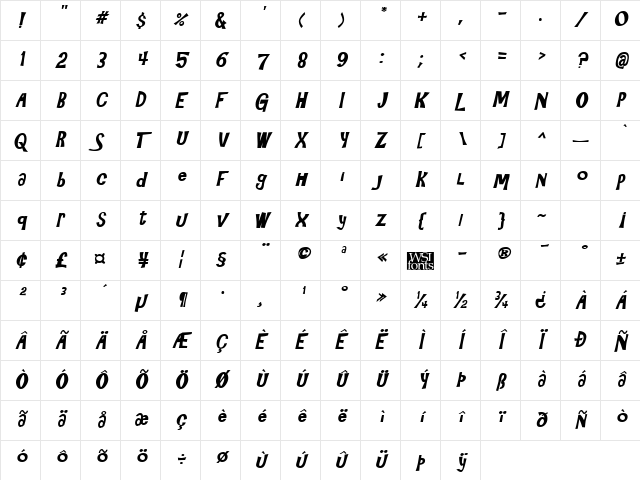
3HourTour BoldItalic
Design Context for 3HourTour
3HourTour is a composed and adaptable typeface that performs quietly and consistently across a wide range of design contexts. The slanted form adds forward momentum and visual energy. Its bold stroke weight gives it real presence on the page.
Pro Tip: Use 3HourTour for emphasis, pull quotes, and subheadings where its slanted energy can add rhythm to the layout.